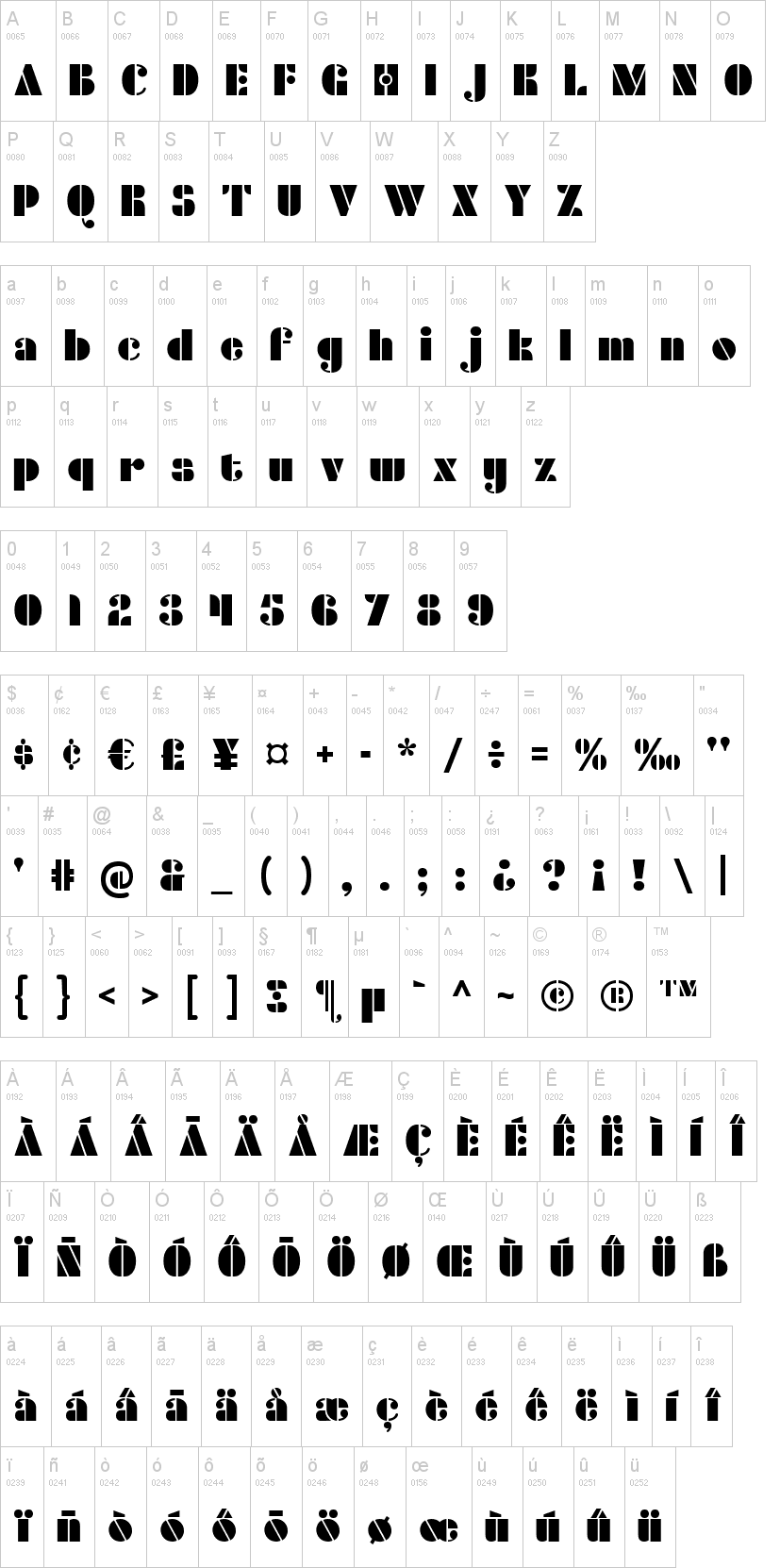
Шрифт Densmore
There are 3 styles of Densmore: Regular (free), Blue and Pink. The Blue and Pink styles can be used to create layer effects: change colors, offset, experiment. In OpenType savvy applications, a double lowercase o combination will automatically be replaced by a mirrored oo combo.